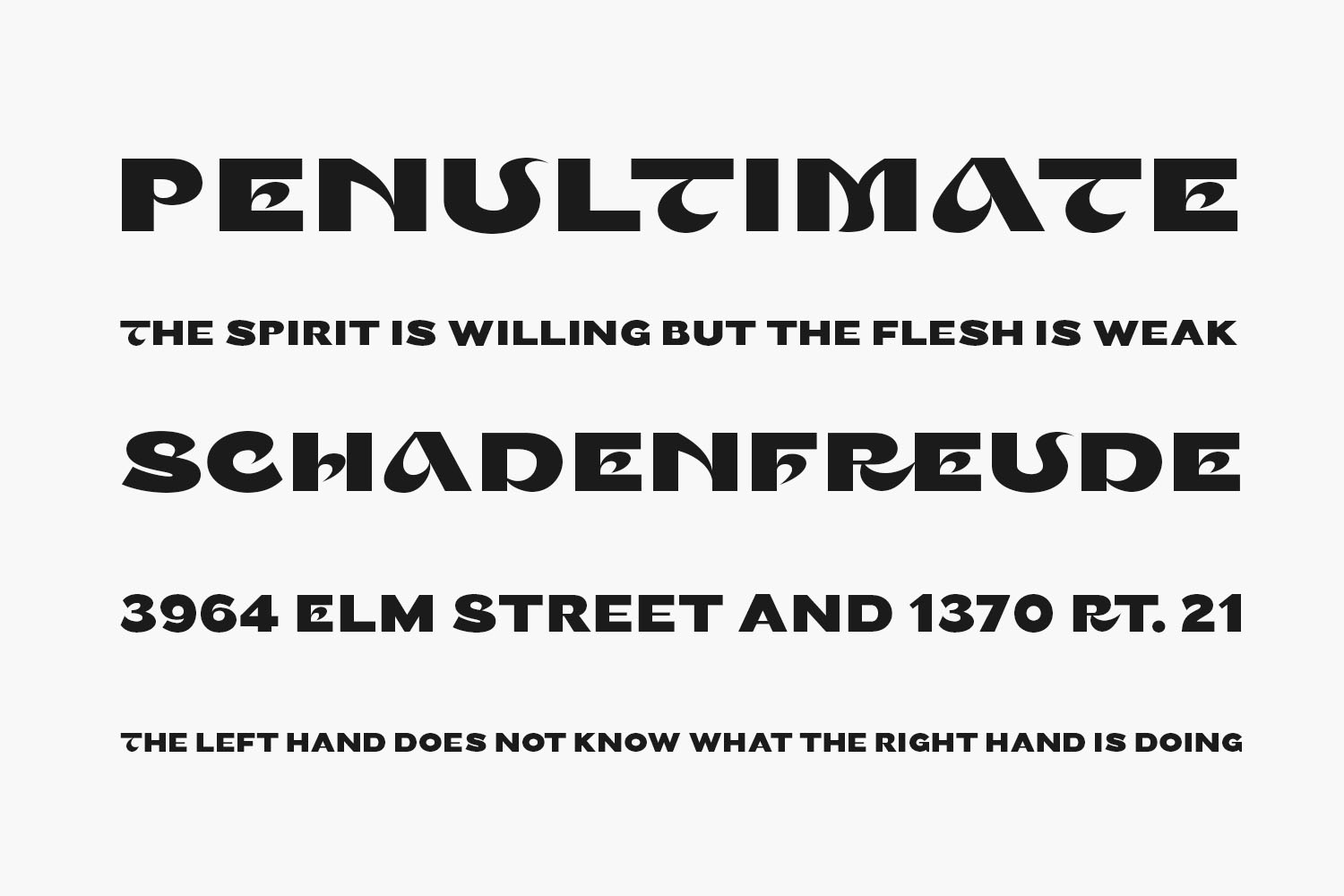
Persona Free Font is a bold and trendy looking display font. No matter the topic, this font will be an incredible asset to your fonts’ library, as it has the potential to elevate any creation. Persona Free Font was designed by Saridezra and is free for personal use only. Please purchase the full version for commercial use.